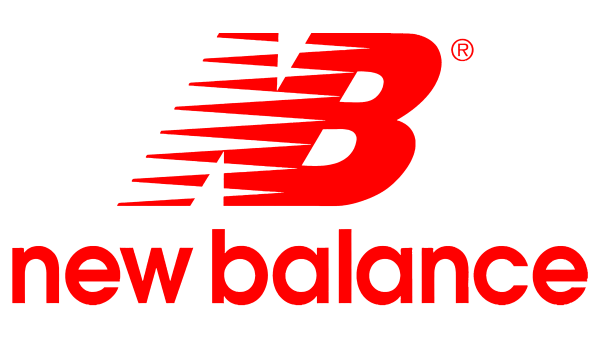
New Balance Font
What Font is New Balance?
New Balance Font is closely associated with ITC Avant Garde Gothic Demibold, a geometric sans-serif typeface known for its clean, balanced lines and modern feel. This commercial font captures the brand’s sporty yet professional identity. However, a free alternative, Evolventa, offers a very similar appearance and works perfectly for personal design projects inspired by the New Balance logo. You can download the free version from the link below.
About New Balance
New Balance is an American sportswear brand founded in 1906 in Boston, Massachusetts. Renowned for its high-quality athletic shoes and innovative performance designs, the company has become one of the leading names in footwear and apparel. Combining comfort, technology, and timeless style, New Balance continues to be a favorite among athletes and casual wearers alike, representing a blend of functionality and everyday fashion.